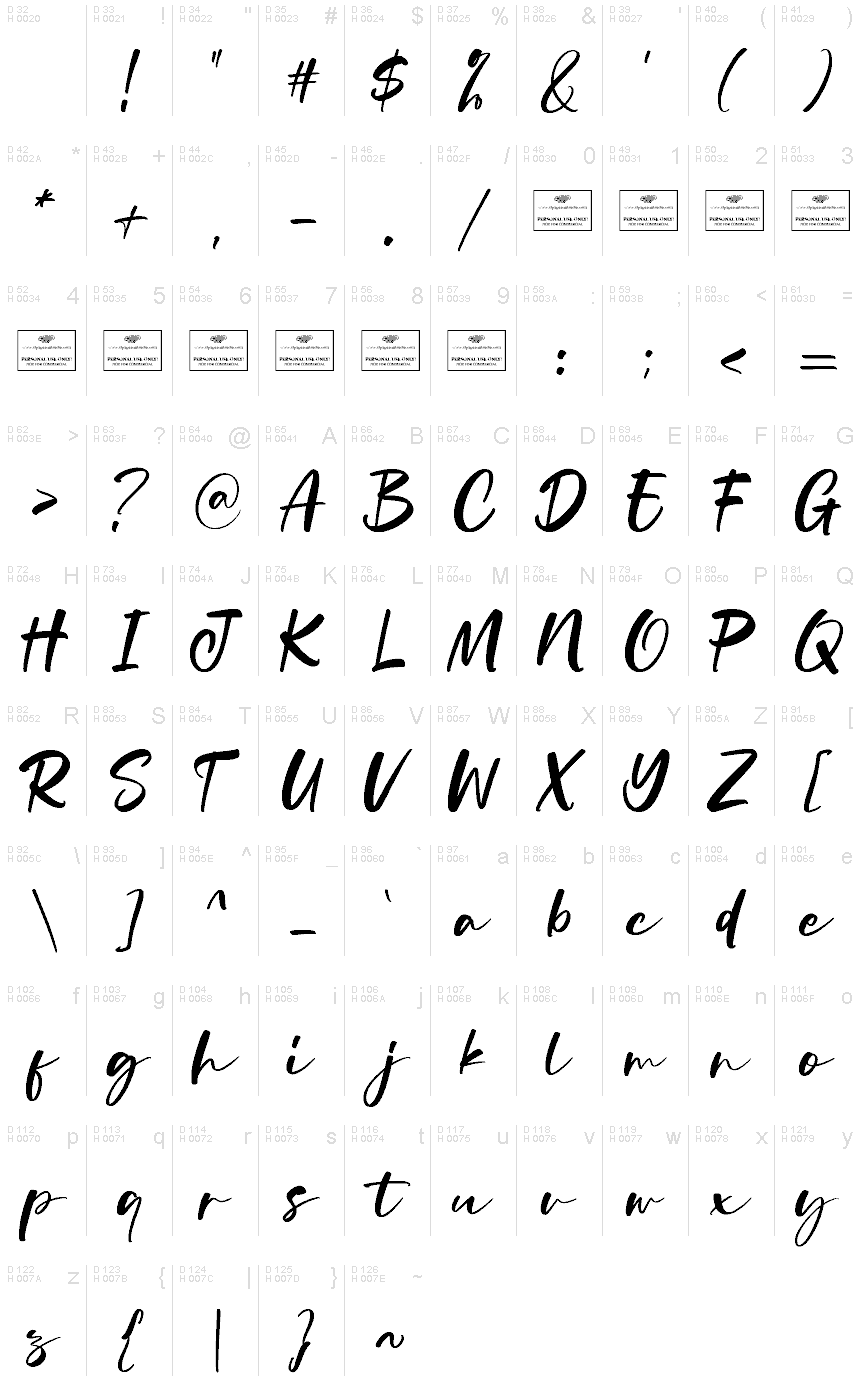
Bridget
Bridget font is a free handwritten font by Alpaprana Studio that flaunts a modern and effective design. Elegant and expressive, it offers the perfect aesthetic appeal by combining both luxury sweetness and simplicity. Its letters are slightly inclined with thin textured strokes, giving the font its refined rich look which can be used for various applications.
No need to wait for a special occasion or event to give this awesome resource a try; you can use it today! Ideas include logo design, branding, invitations, greeting cards, online posters or ads, social media content posts or banners, digital planners or journals.